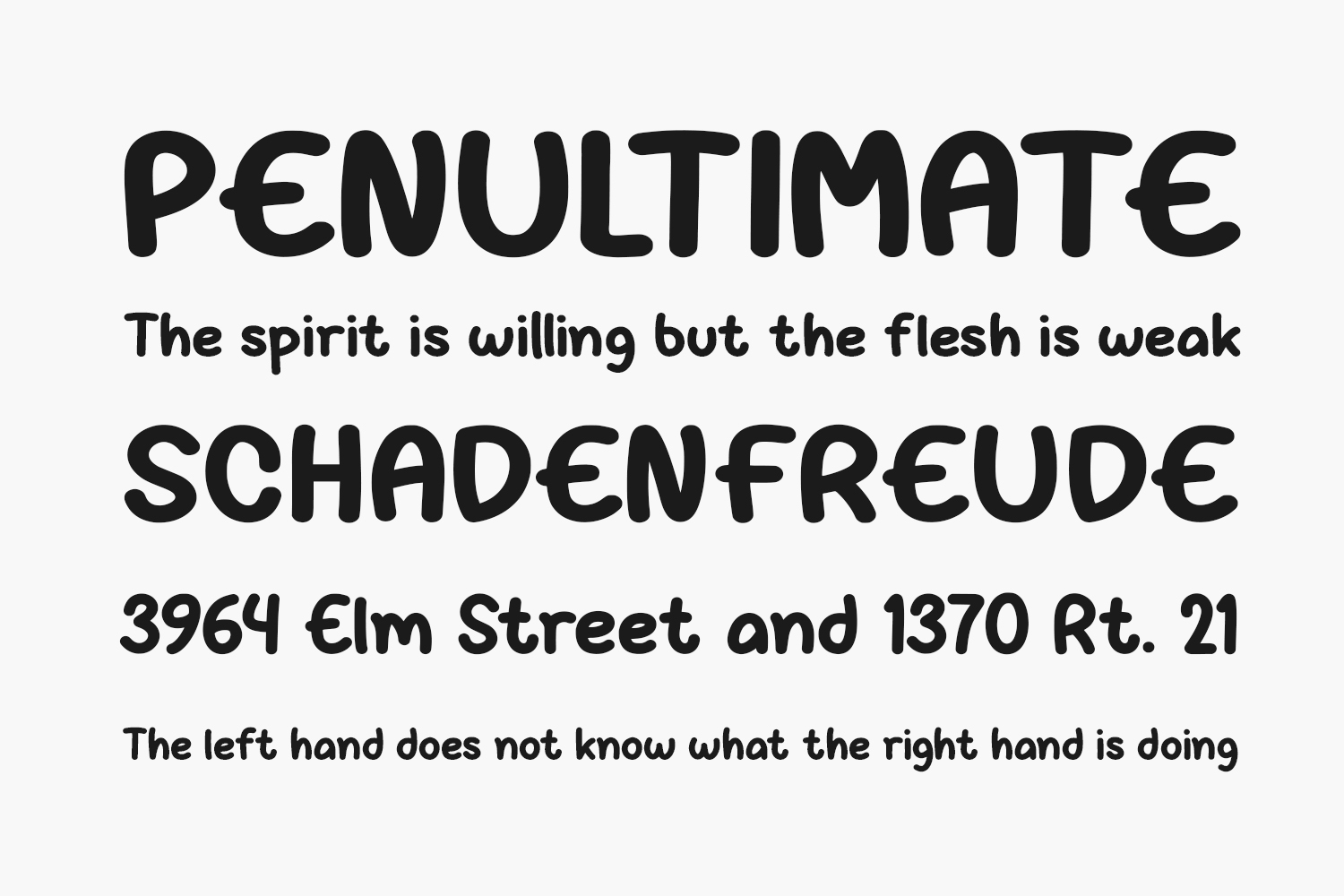
Vanilla Caramel Free Font is the perfect combination of playful and fancy. The font’s whimsical, cartoon-like style brings a sense of lightheartedness and fun to any project. The bold, curvy letters evoke feelings of warmth and indulgence, like sinking your teeth into a freshly baked caramel-covered vanilla treat. This font is sure to add a touch of sweetness and personality to any design.
Designed by Appleberry Studio